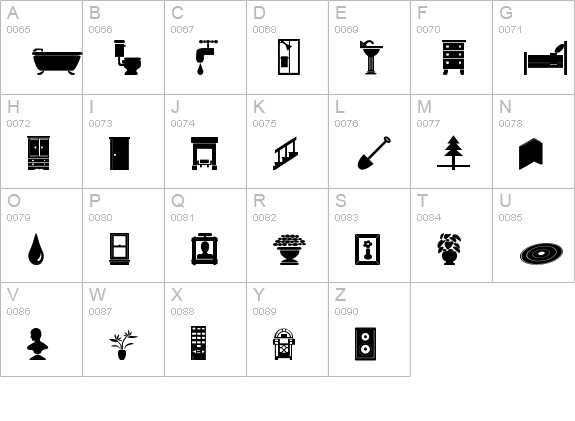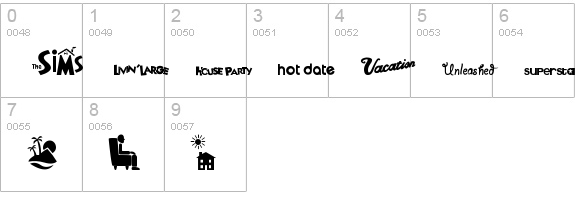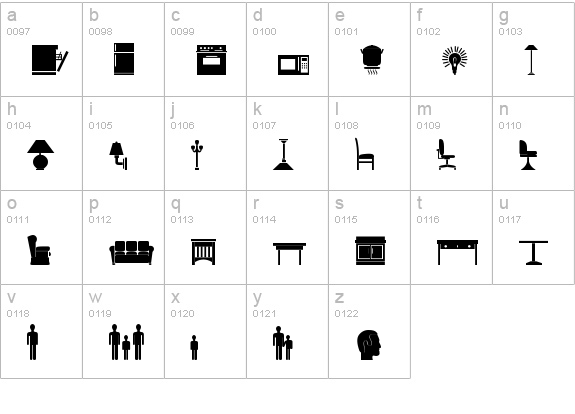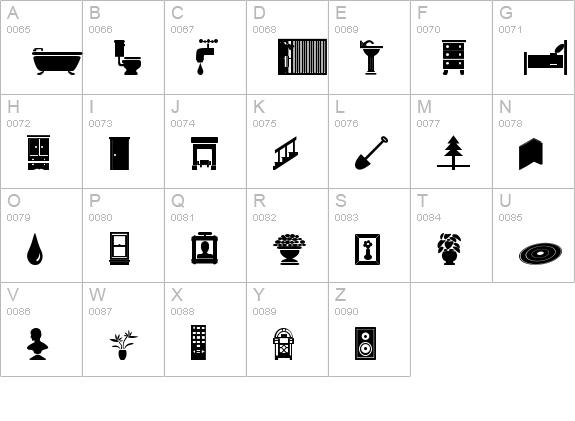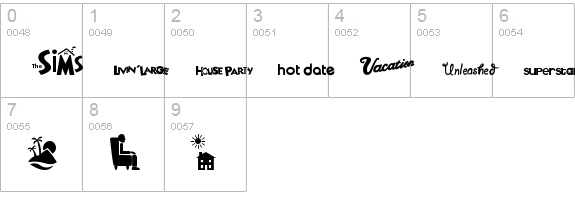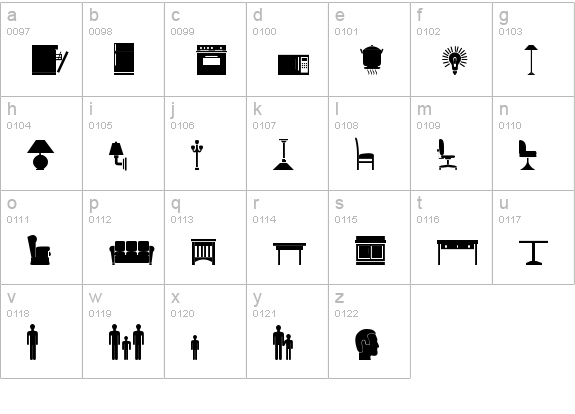
Simbats Font Details
Introducing Simbats, a stunningly versatile font that will take your designs to the next level. This font embodies elegance, sophistication, and a touch of playfulness, making it perfect for a wide range of projects. Simbats features a unique combination of sleek lines and intricate details, creating a harmonious balance that will captivate your audience. Whether you're designing a logo, a website, or a poster, this font will effortlessly bring your creative vision to life. One of the most exciting aspects of Simbats is that it is completely free. Yes, you heard that right! This incredible font is freely available to download at FontsMarket.com, making it accessible to designers and enthusiasts alike. With Simbats, you can enhance your projects without any financial constraints. What sets Simbats apart from other fonts is its versatility. It has a range of weights and styles, allowing you to experiment and find the perfect fit for your design. Whether you prefer a bold and impactful look or a subtle and refined aesthetic, Simbats has got you covered. The attention to detail in Simbats is truly remarkable. Each letter and symbol has been meticulously crafted, ensuring seamless legibility and a visually pleasing composition. It's a font that demands attention and leaves a lasting impression. Not only does Simbats excel in aesthetics, but it also boasts exceptional functionality. It is compatible with various software programs and can be easily integrated into your workflow. Whether you're working on a print project or a digital design, Simbats will adapt effortlessly to your needs. So why wait? Embrace the beauty and versatility of Simbats today and elevate your design projects to new heights. Download this amazing font for free at FontsMarket.com and let your creativity soar.